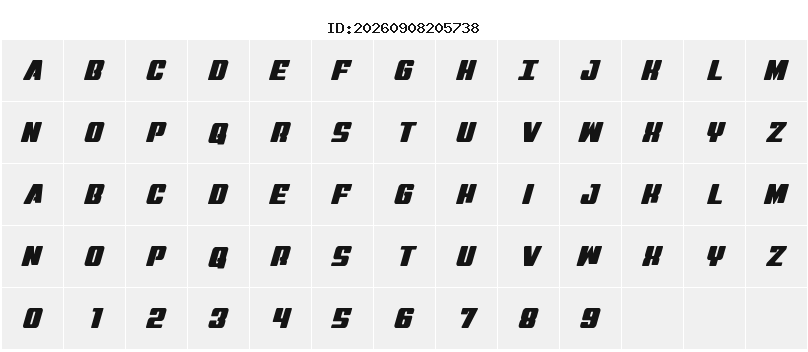
Virgin Hybrid Condensed Preview
• Font Name: Virgin Hybrid Condensed
• Font Style: Condensed
• Full Font Name: Virgin Hybrid Condensed
About Virgin Hybrid Condensed.ttf
Virgin Hybrid Condensed.ttf is a modern, elegant sans-serif font designed for ultimate readability and visual harmony. Perfect for branding, headlines, web design, and print materials.